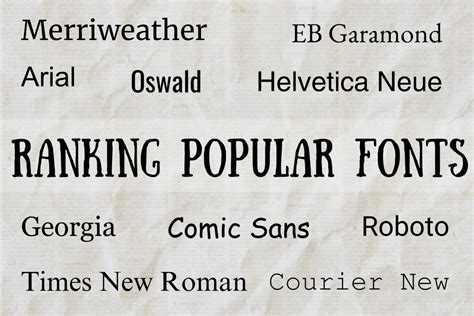
Most Used Fonts. Web the 40 best fonts for websites why are website fonts important? Web salman ravoof , december 12, 2023 there are 1052 different google font families available for free (at the time of writing this article).
Top 20 Most Popular Fonts Of All Time LifeHack
Helvetica (max miedinger, 1957) helvetica is arguably the most famous typeface on the planet. Web 10 most popular sans serif fonts of 2021. Web most popular fonts download otf z y m m montserrat julieta ulanovsky 36 styles download ttf z y m m open sans ascender fonts 10 styles download ttf z y m m. Therefore, choosing the right one with. Bastomi sans serif font (ttf, otf, woff) continuing the theme of textured fonts but this time with a sans serif font,. Web the 40 best fonts for websites why are website fonts important? Website fonts account for 90% of the design. Web top 20 most popular fonts of all time. Web salman ravoof , december 12, 2023 there are 1052 different google font families available for free (at the time of writing this article).